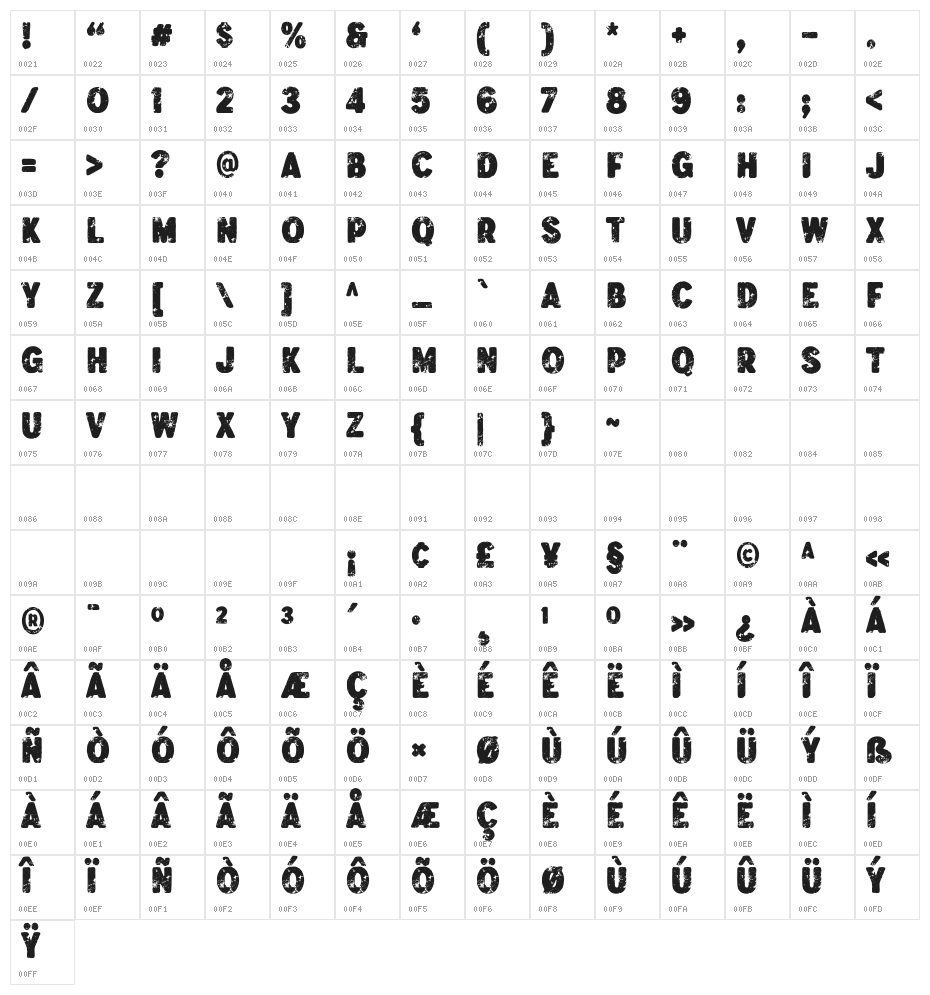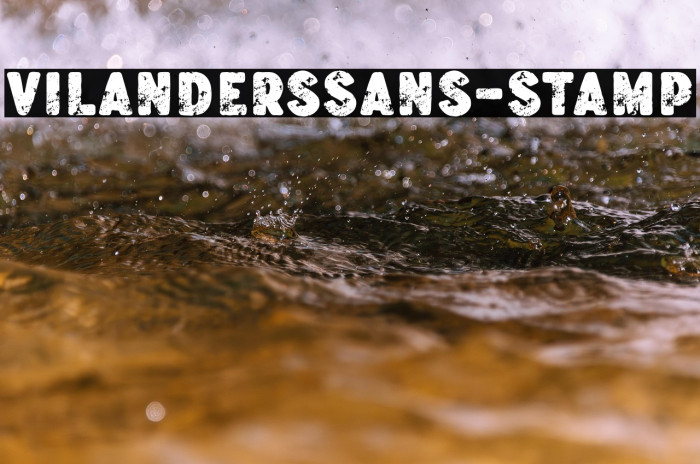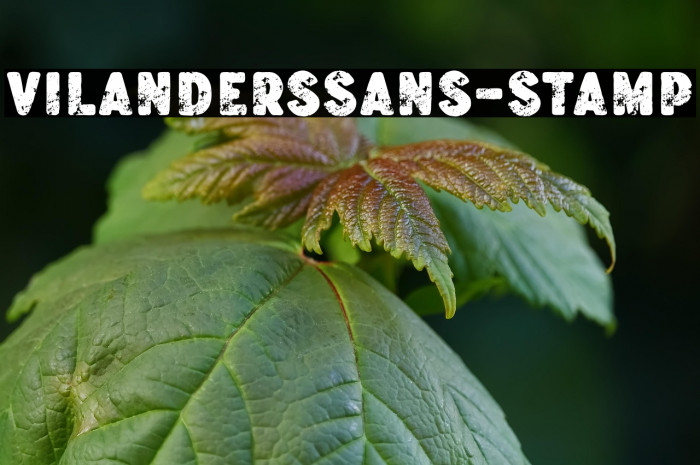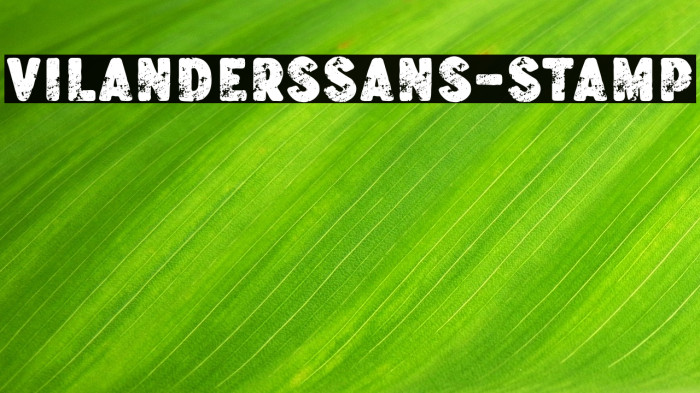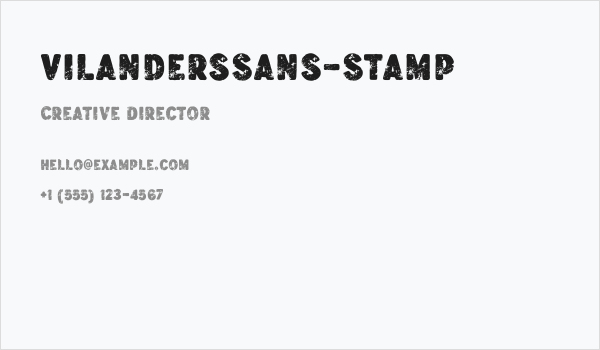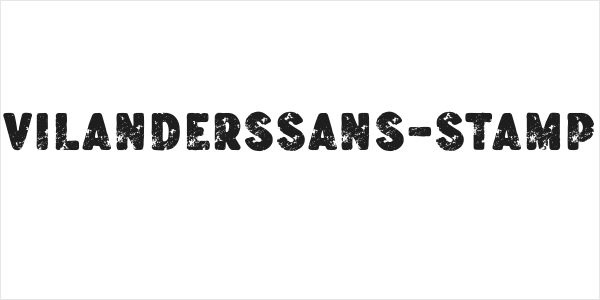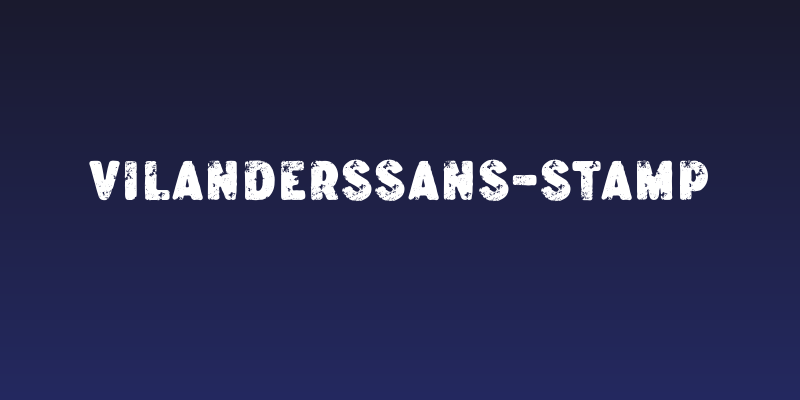
VilandersSans-Stamp Font
VilandersSans-Stamp Description
This font features a bold, distressed style with a textured appearance that mimics the look of a worn stamp. The characters are robust and impactful, with a consistent thickness throughout, giving them a strong presence. The distressed effect adds a vintage and rugged feel, making it ideal for designs that require an authentic, weathered look. The uppercase and lowercase letters maintain a uniform style, while the numbers and special characters complement the overall aesthetic. This font is perfect for projects that aim to convey a sense of nostalgia or a handcrafted touch.
| Use Case | Logos, Posters, Branding |
| Proposed Projects | Ideal for vintage-themed posters, branding, packaging, and apparel designs. |